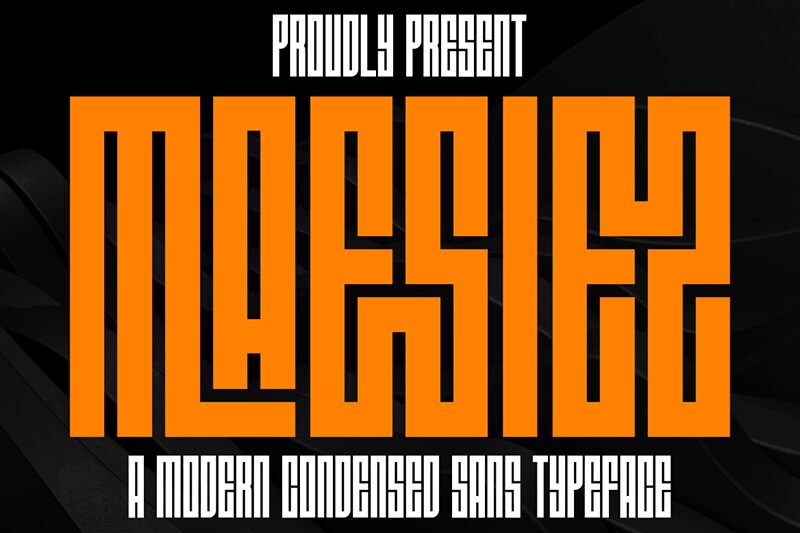
MAESIEZ
Maesiez font by Gilang Ternadho offers a futuristic and modern display typeface presented in a light condensed shape. The font has retro geometric influences, some of which are inspired by art deco figures. Combined, these elements relate to each other harmoniously across all characters and make the whole writing appear more uniform.
Use Maesiez for designing posters, video games, clothing items and accessories, packaging material, business cards, website headers and text fields. Digital ads or marketing materials will also look great when designed using this free font in combination with your favorite graphics/editorial work tool.